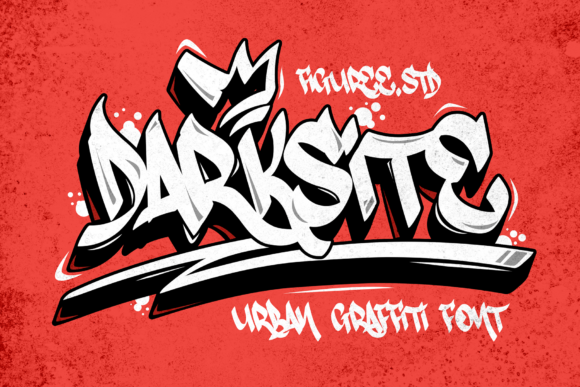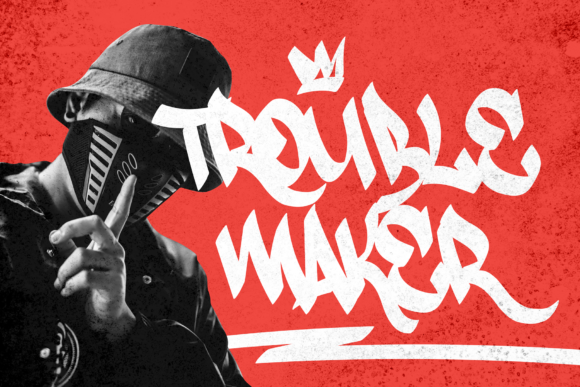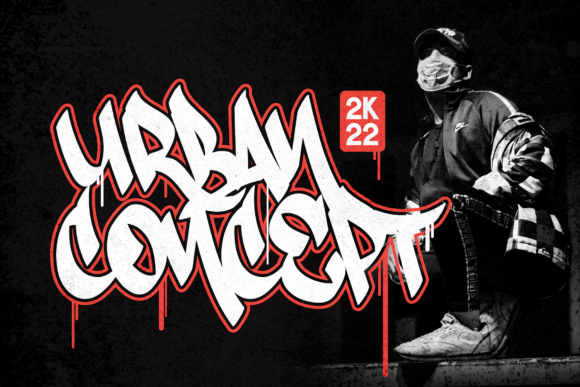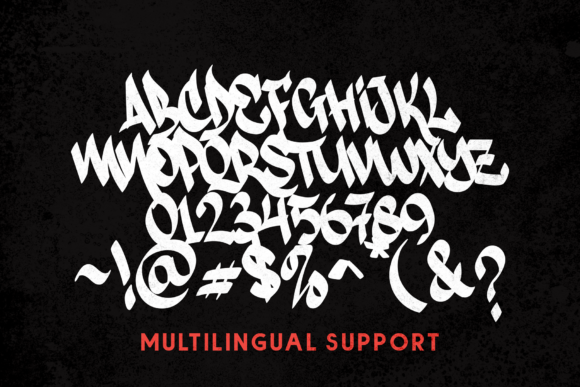
Darksite Font: Urban Graffiti Display Font for Bold Logo Design
About the Darksite Font
Add a touch of class to your work with the Darksite Font, a truly exceptional typeface. Darksite – Urban Graffiti Display Font.
This font was created to make graffiti designs easier.
Darksite is suitable for various projects such as packaging, logos, labels, posters, shirt designs, bulletins, typography, or other creative projects.
Darksite’s bold, rebellious personality makes it ideal for headlines, posters, and branding projects needing a strong visual impact. It excels in short, impactful statements and works well for edgy streetwear brands, music events, or projects with an urban aesthetic. Avoid using it for body text or lengthy paragraphs; its weight and character are not suited to readability in smaller sizes.
Pairing Darksite with a clean sans-serif like Open Sans for body copy creates a strong contrast, balancing the font’s aggressive energy with easily readable text. For a more sophisticated feel, consider pairing it with a classic serif like Garamond for secondary text elements, softening its raw edge.
Ultimately, Darksite is best suited for projects that benefit from a powerful, urban-inspired visual identity. Its unique character shines when used strategically to emphasize key messaging rather than providing extensive text content.
Darksite Font Example